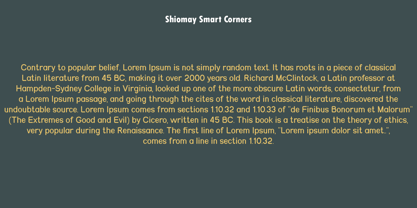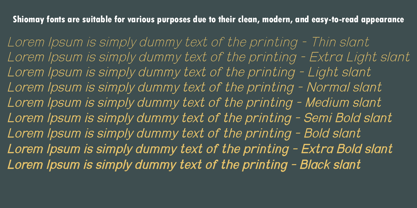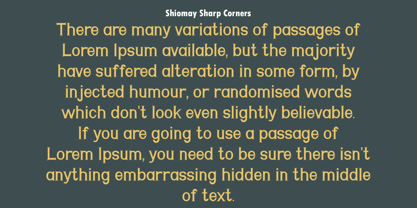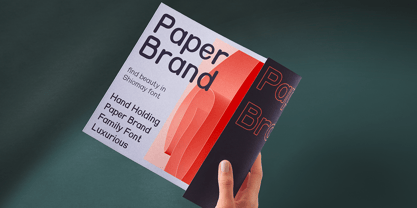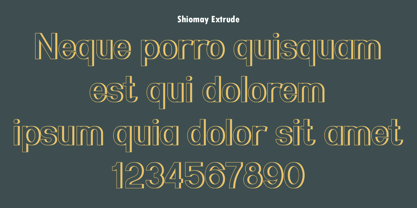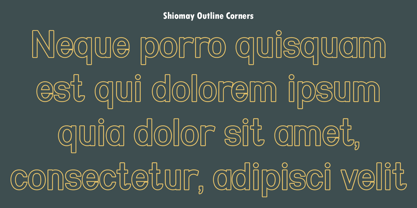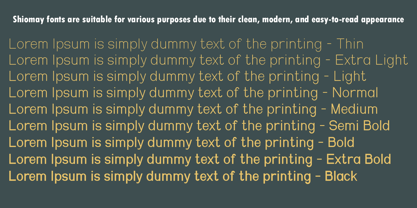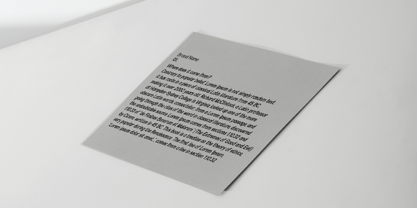
Shiomay
by Zaki Creative
The Shiomay Font Family was designed by Teuku Muhammad Zaki and published by Zaki Creative. Shiomay contains 22 styles and family package options. More about this family
Shiomay is a modern sans serif font with 22 unique styles, offering incredible versatility for any design project. With a minimalist yet bold design, Shiomay delivers a clean and professional look, perfect for branding, posters, websites, and editorial designs. This font strikes the perfect balance between simplicity and beauty, making it ideal for creative professionals seeking elegance in their typography. Every thin and bold stroke of Shiomay radiates harmony and grace, making it a great choice for a wide range of creative applications.
Designers: Teuku Muhammad Zaki
Foundry: Zaki Creative